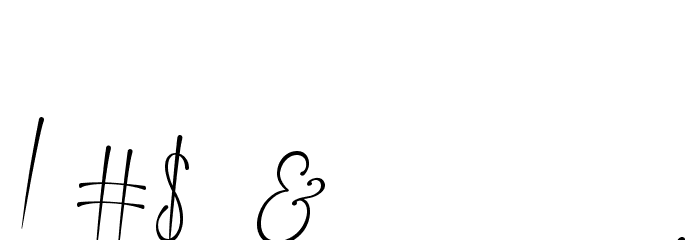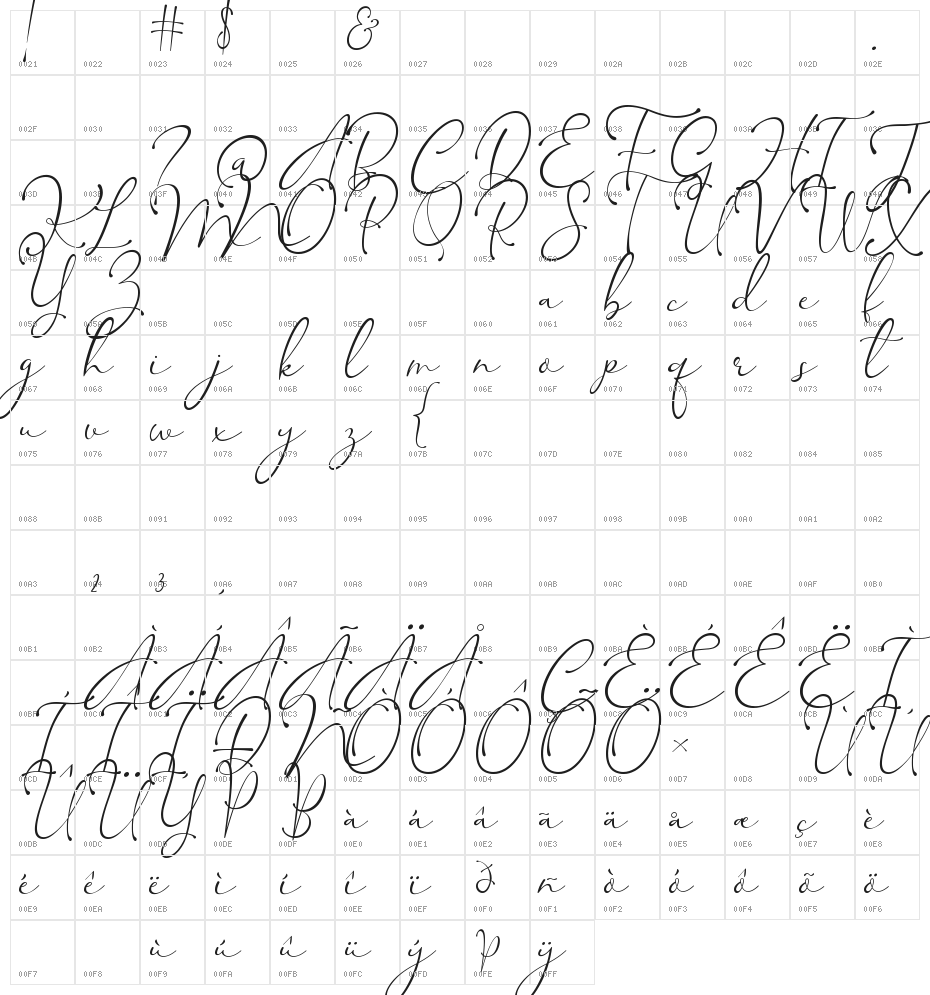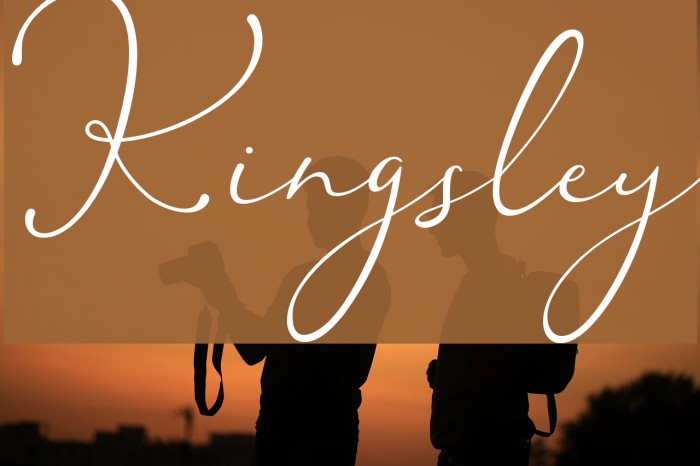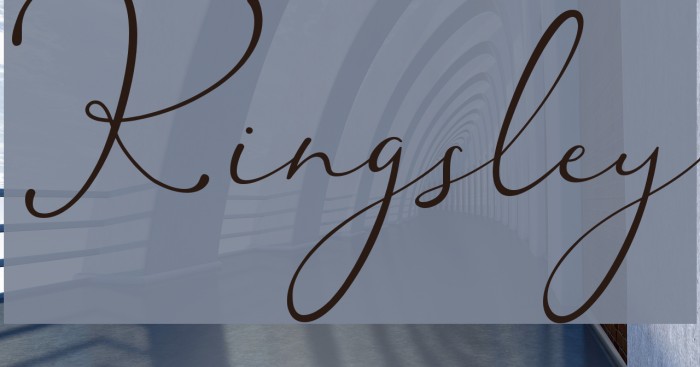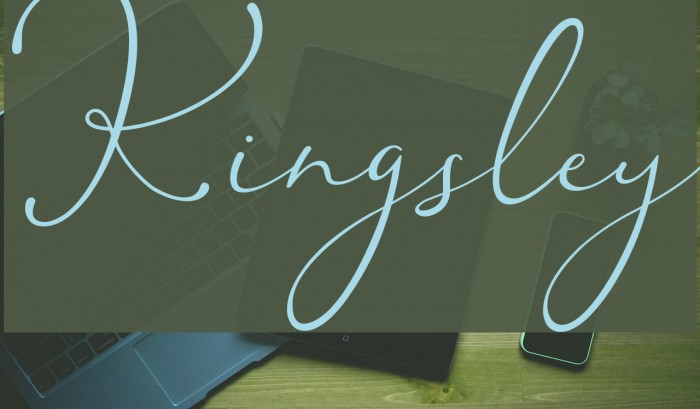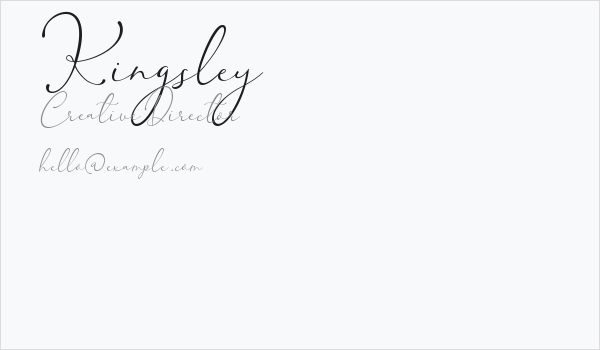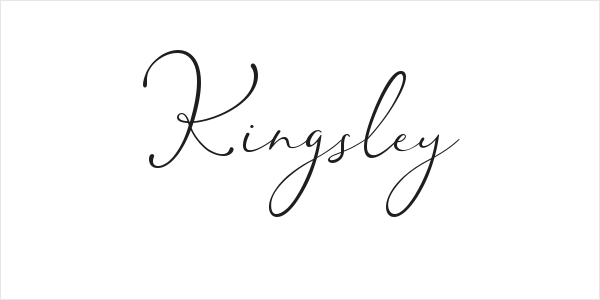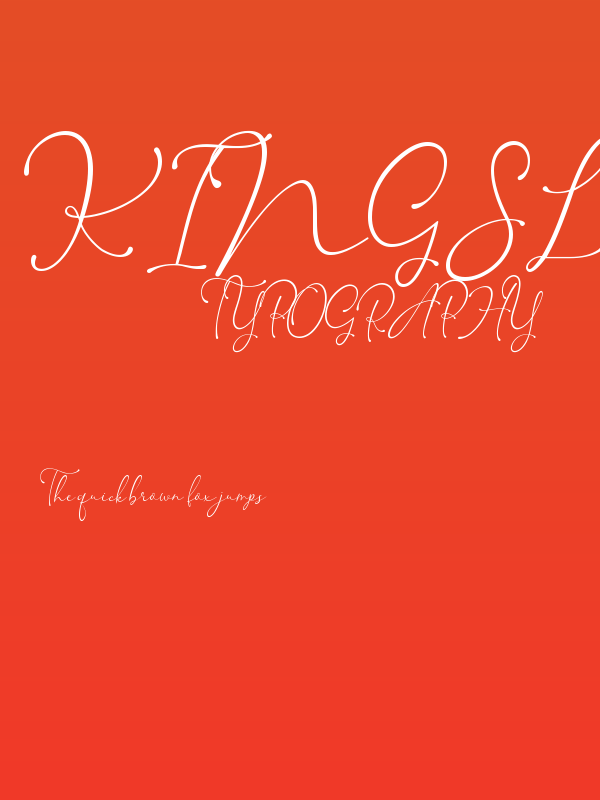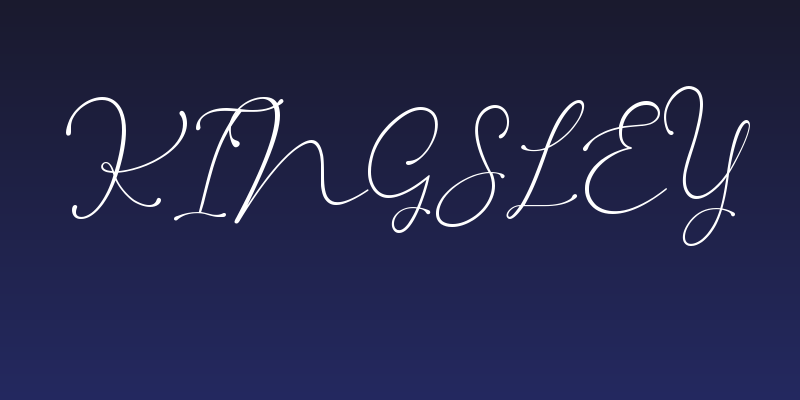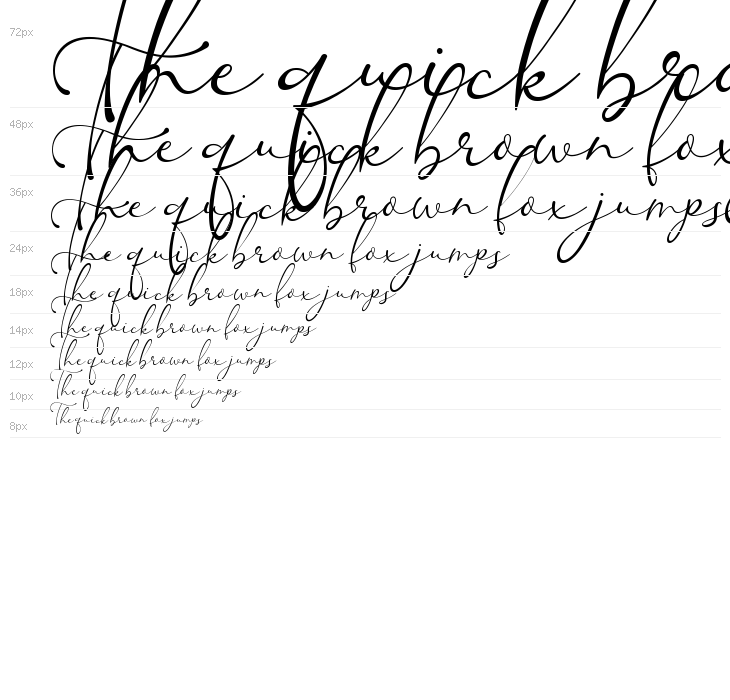
Kingsley Font
Kingsley Description
This elegant script font features flowing, interconnected letters that exude a sense of sophistication and grace. The uppercase letters are characterized by their sweeping curves and delicate loops, while the lowercase letters maintain a consistent fluidity, enhancing the overall harmony of the typeface. The numerals and special characters are crafted with the same attention to detail, ensuring a cohesive look across all elements. The font's thin strokes and high contrast between thick and thin lines add to its refined appearance, making it ideal for formal and decorative applications.
| Use Case | Logos, Invitations, Decorative headlines |
| Proposed Projects | Ideal for wedding invitations, elegant branding, high-end product packaging, and decorative headlines. |